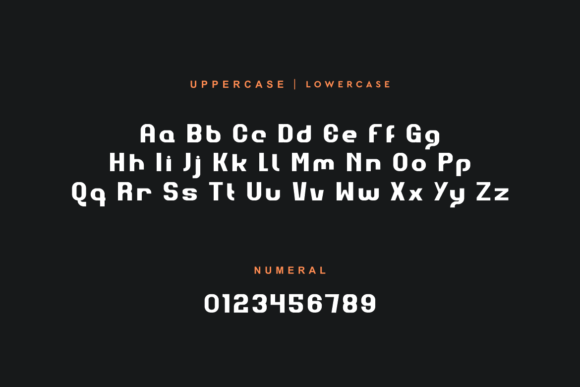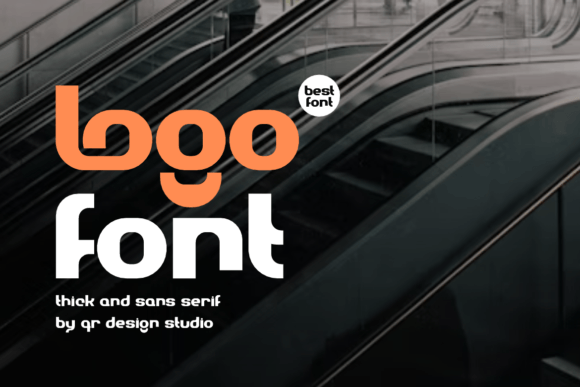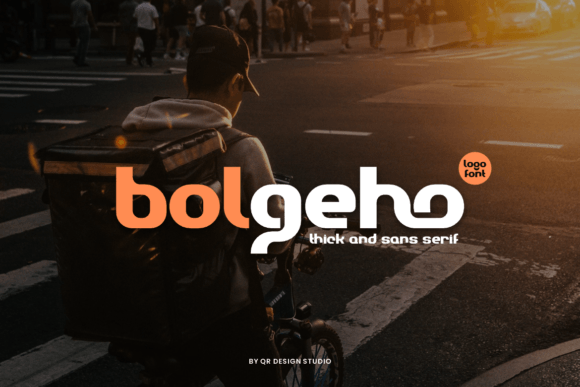
Bolgeho Font
Designer: qrdesignstd
Bolgeho Font is an incredibly unique sans serif font. Masterfully designed to become a true favorite, this font has the potential to bring each of your creative ideas to the highest level!